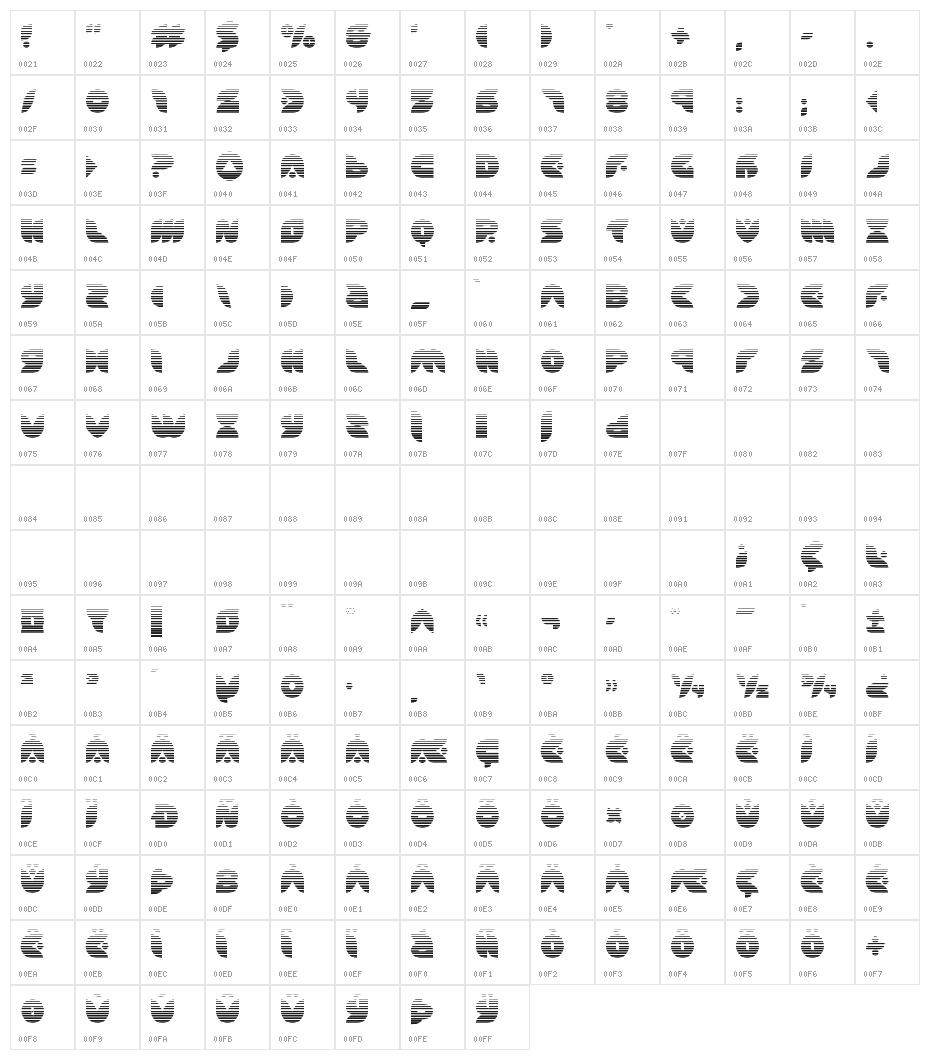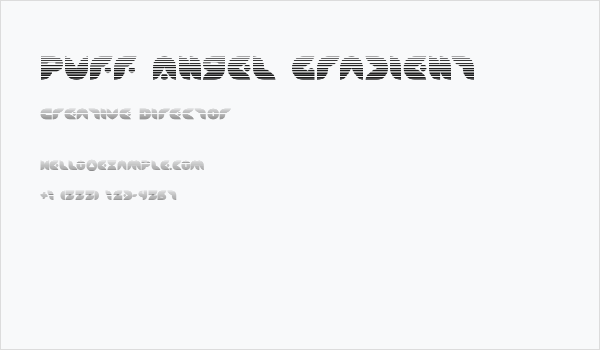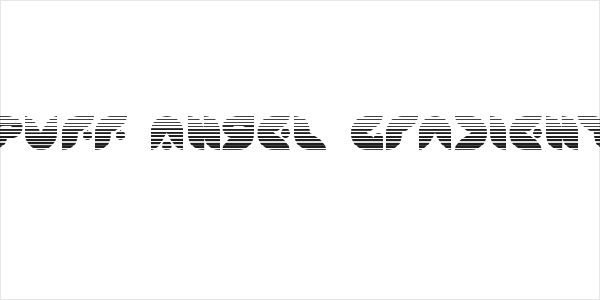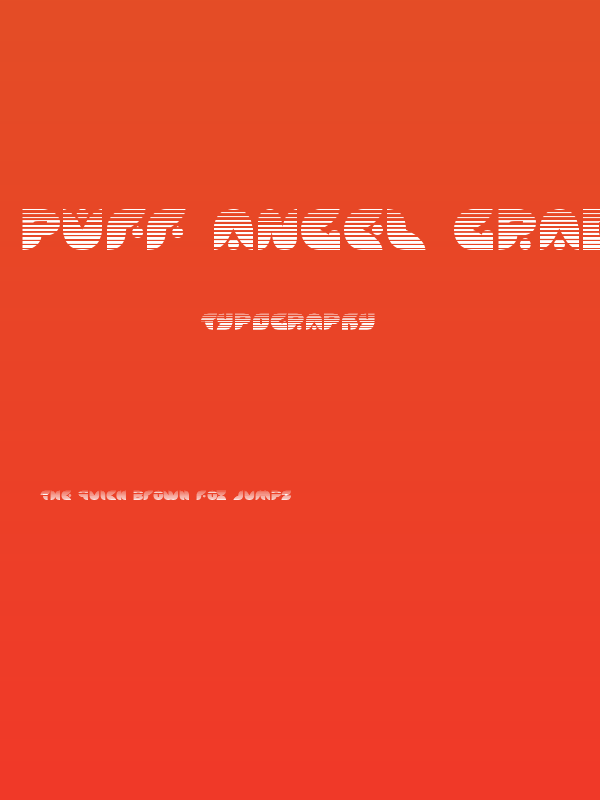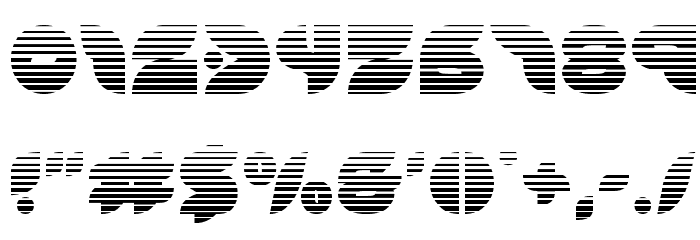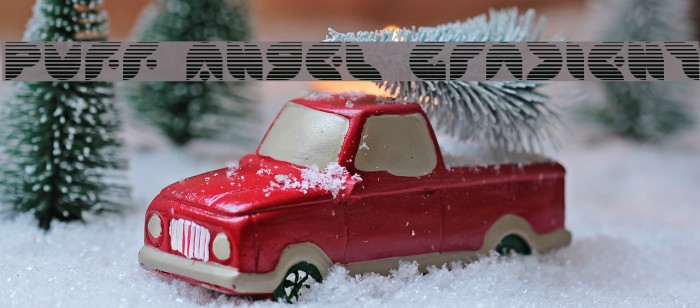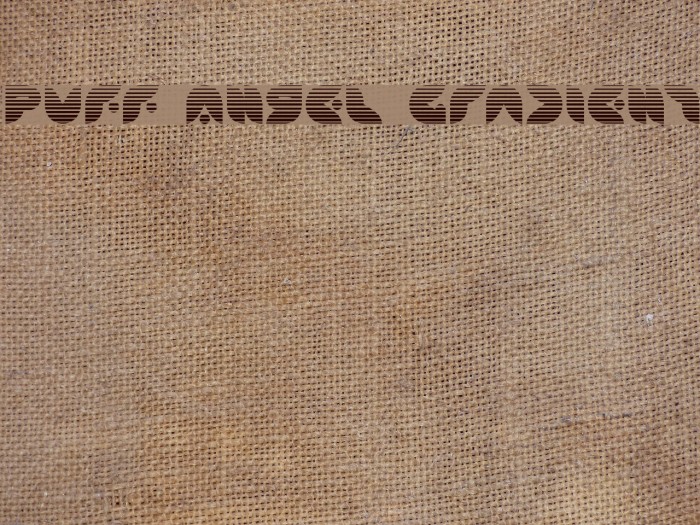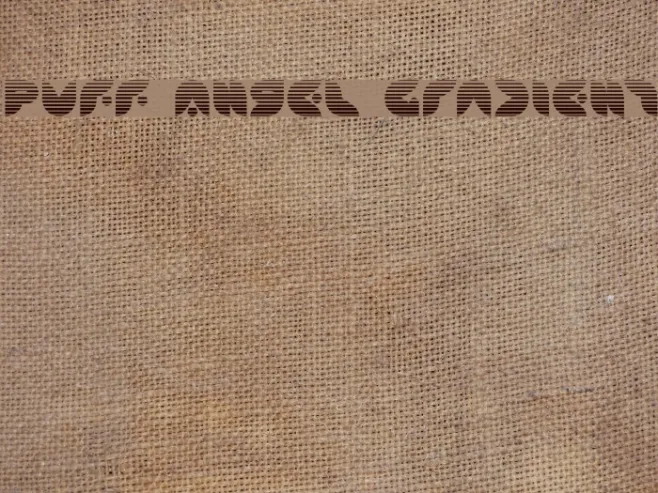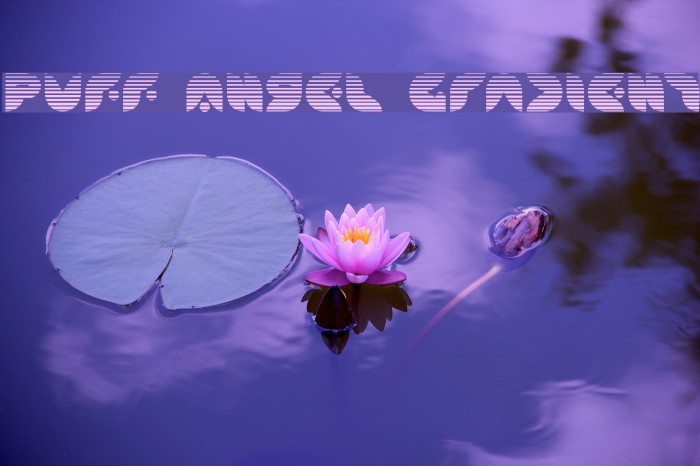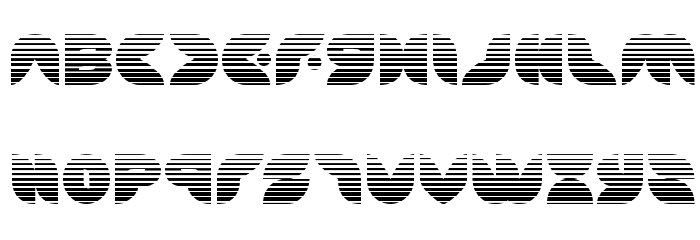
Puff Angel Gradient Font
Puff Angel Gradient Description
This font features a unique, modern design characterized by horizontal lines that create a gradient effect within each character. The letters are bold and have a futuristic, digital appearance, making them stand out with a distinct visual style. The use of negative space and line breaks gives the font a dynamic and eye-catching look, suitable for creative and innovative projects. The uppercase and lowercase letters maintain consistency in style, while the numbers and special characters complement the overall aesthetic.
| Proposed Projects | Ideal for digital art, technology branding, futuristic posters, and innovative product packaging. |